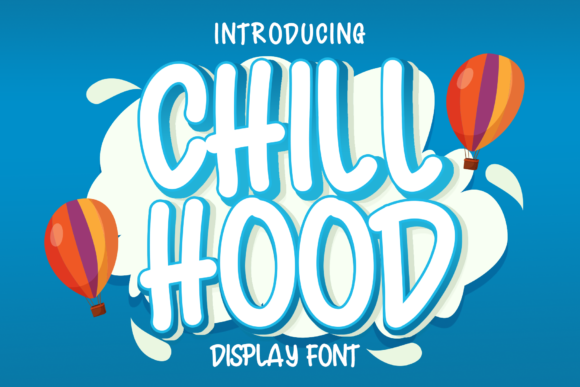
Adding a Touch of Cool to Your Designs
You know that moment when you’re brainstorming ideas for a project, and suddenly the perfect font pops into your head? For designers, those ‘aha’ moments are what make the job so exciting. And, we’re here to introduce you to the one that might just become your new go-to – the Chiil Hood Font.
This cool, relaxed, and trendy display font is designed to add a touch of sophistication to any design. Whether you’re working on a brand identity, a social media campaign, or even a simple blog post, Chiil Hood Font is the perfect addition to your library. Its friendly and neat style makes it versatile enough to be used in a variety of contexts, from casual to professional.
For designers, Chiil Hood Font offers a valuable resource for creating visually appealing and engaging designs. Its unique style and effortless vibe make it an ideal choice for those looking to add a bit of personality to their work.
Chiil Hood Font Key Features
- Unique Characteristics: The font features a unique, graffiti-inspired design with bold lines and vibrant colors, perfect for adding a touch of urban flair to designs.
Designer Review: Chiil Hood Font
Chiil Hood Font is an interesting typeface that caught my attention with its bold and modern design. ✨ The font’s unique blend of clean lines and quirky details makes it perfect for streetwear and urban-inspired projects. It’s also surprisingly legible, making it a great choice for body text and headings alike.
However, there are some limitations to consider. ⚠️ The font’s weight may be too bold for some applications, making it difficult to read in certain contexts. Additionally, the font’s quirky details may not be to everyone’s taste, which could be a turn-off for some designers.
Here are some key features of the Chiil Hood Font:
- Unique blend of clean lines and quirky details
- Perfect for streetwear and urban-inspired projects
- Legible for body text and headings
- May be too bold for some applications
- Quirky details may not be to everyone’s taste
Overall, I think Chiil Hood Font is a solid choice for designers looking for a modern and bold typeface. While it may have some limitations, its unique design and legibility make it a great option for the right project.
Tips for Getting the Most Out of Chiil Hood Font
1. Use Chiil Hood Font for headings and titles to add a touch of elegance.
2. Pair Chiil Hood Font with other fonts to create a unique and eye-catching design.
3. Experiment with different font sizes and colors to achieve the desired effect.
1. Branding and marketing materials.
2. Social media graphics and posts.
3. Wedding invitations and stationery.
4. Business cards and brochures.
Alternatives to Chiil Hood Font